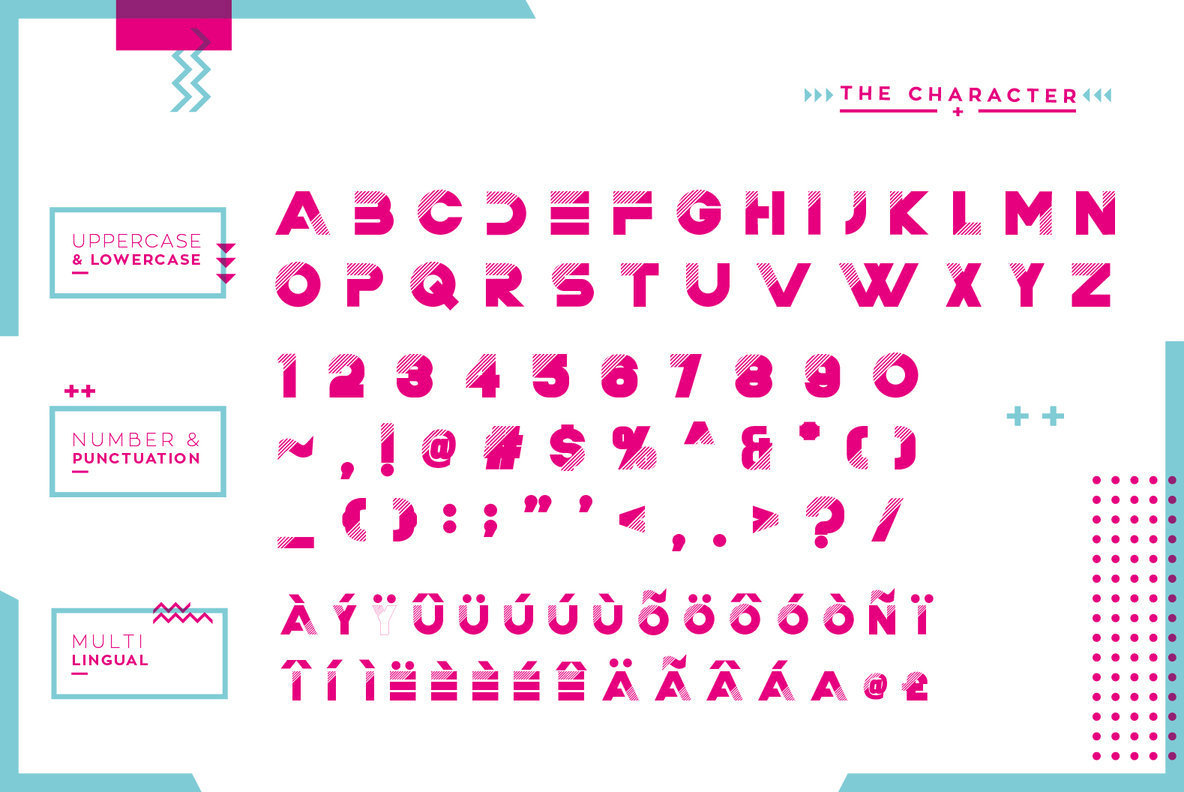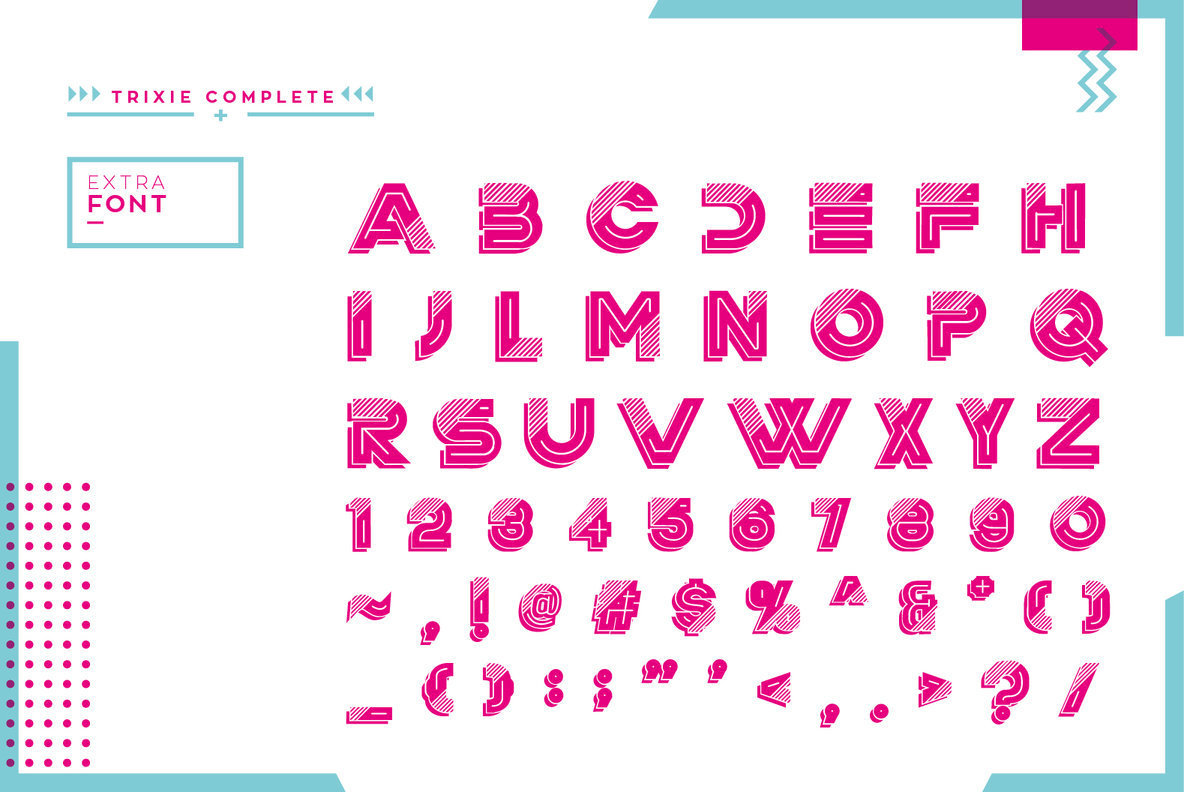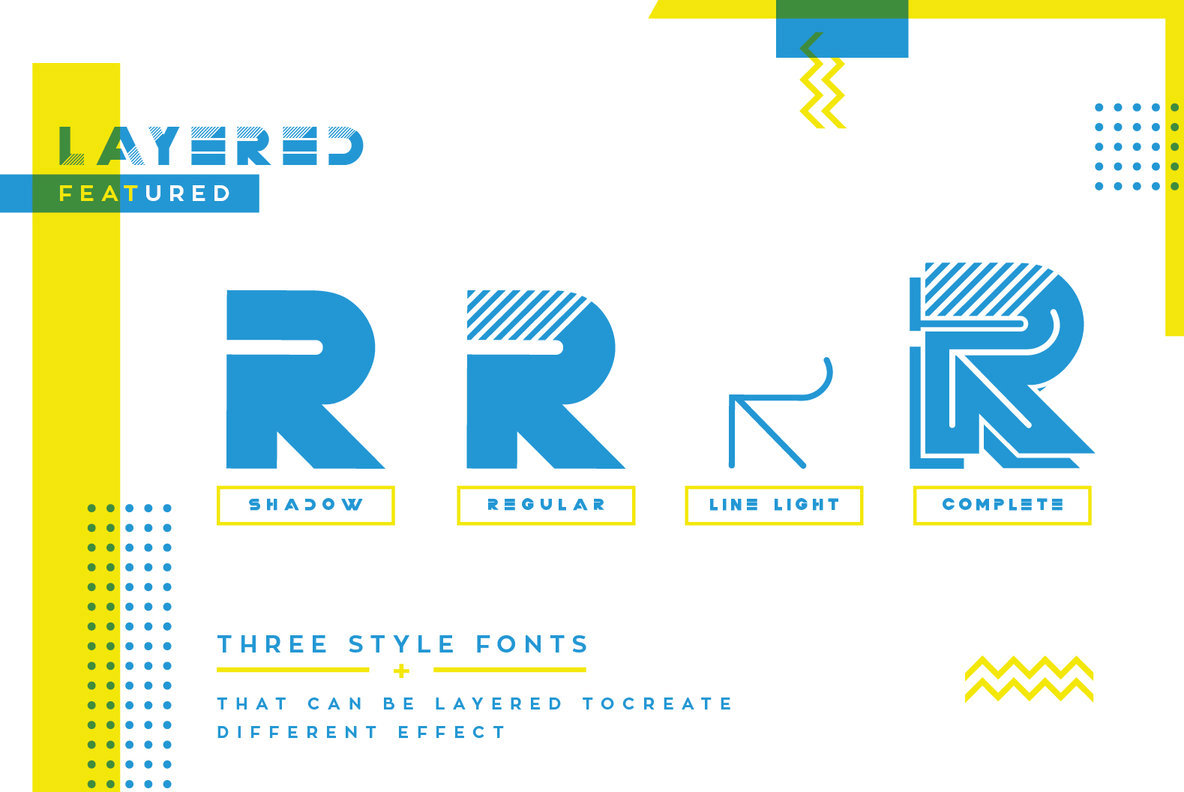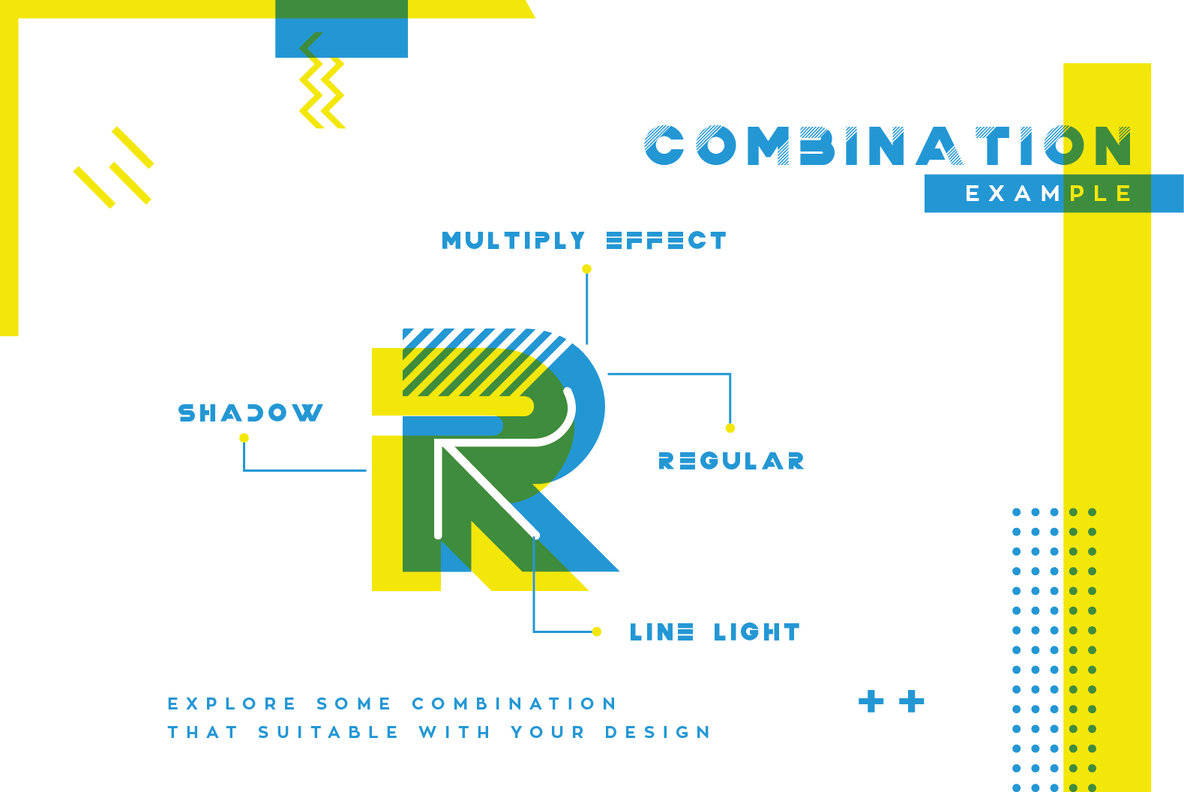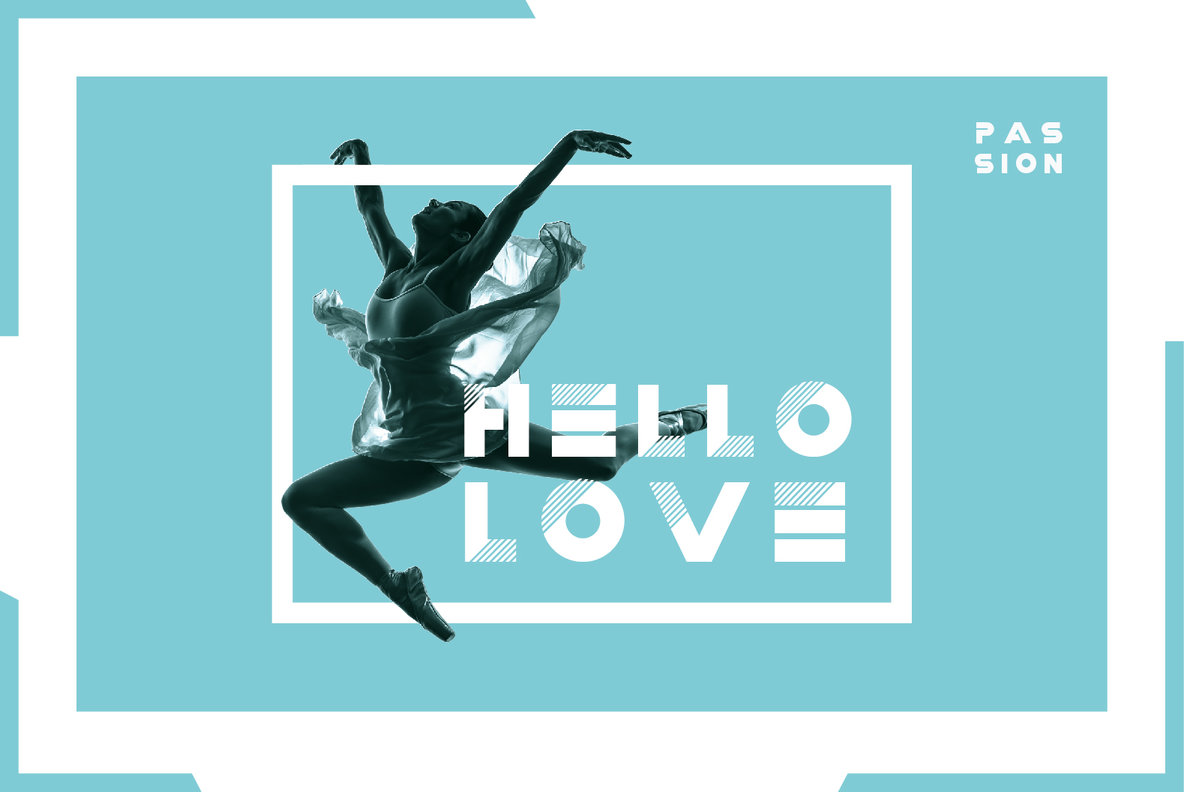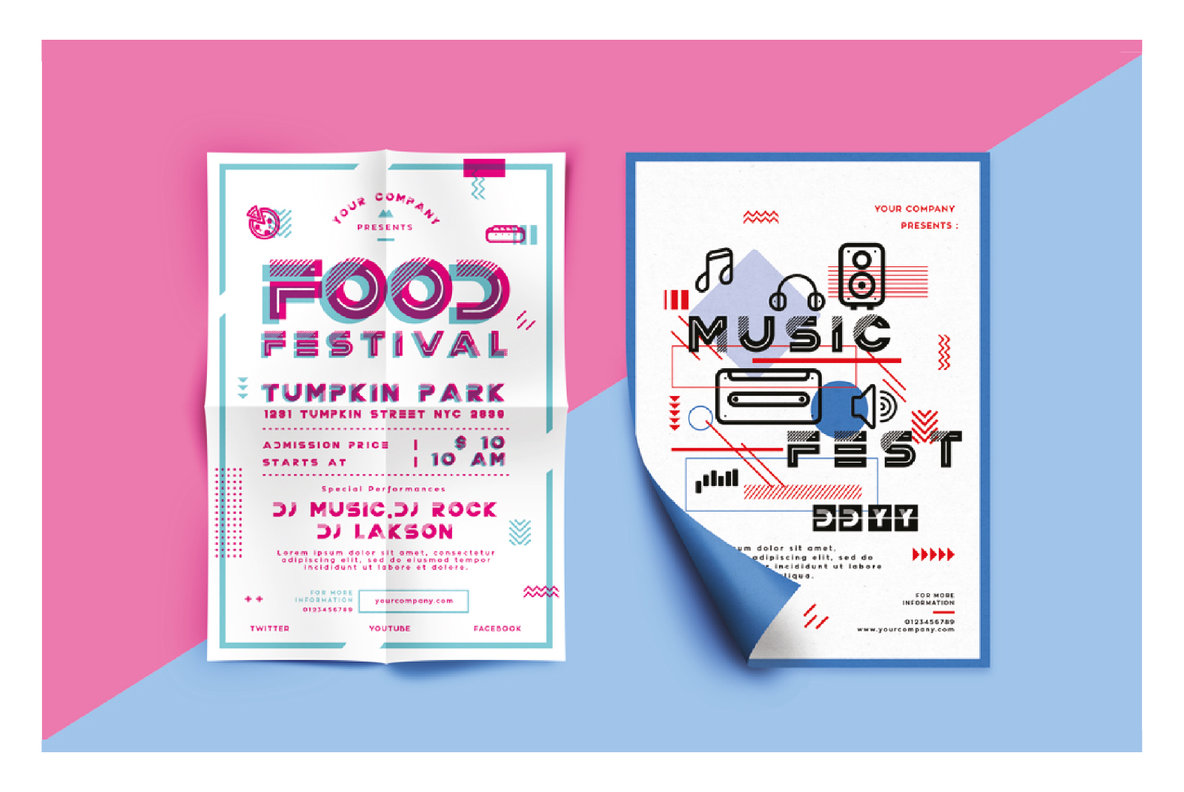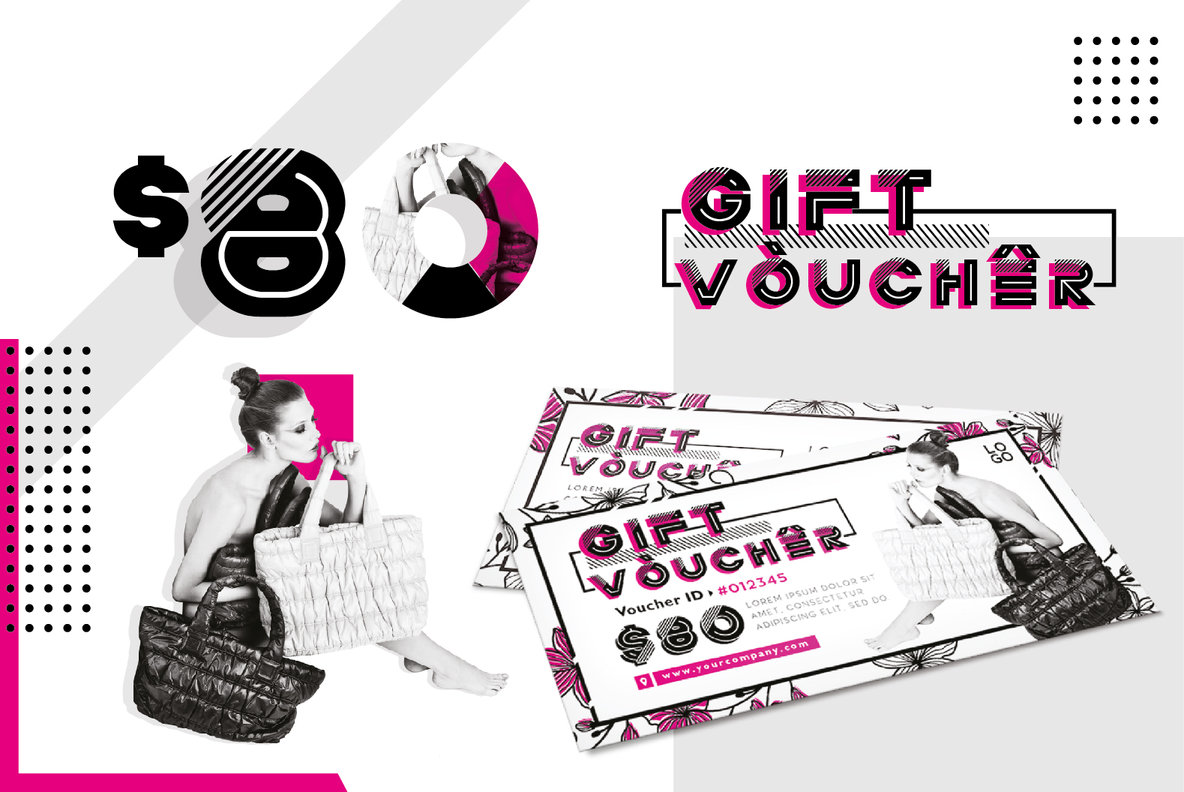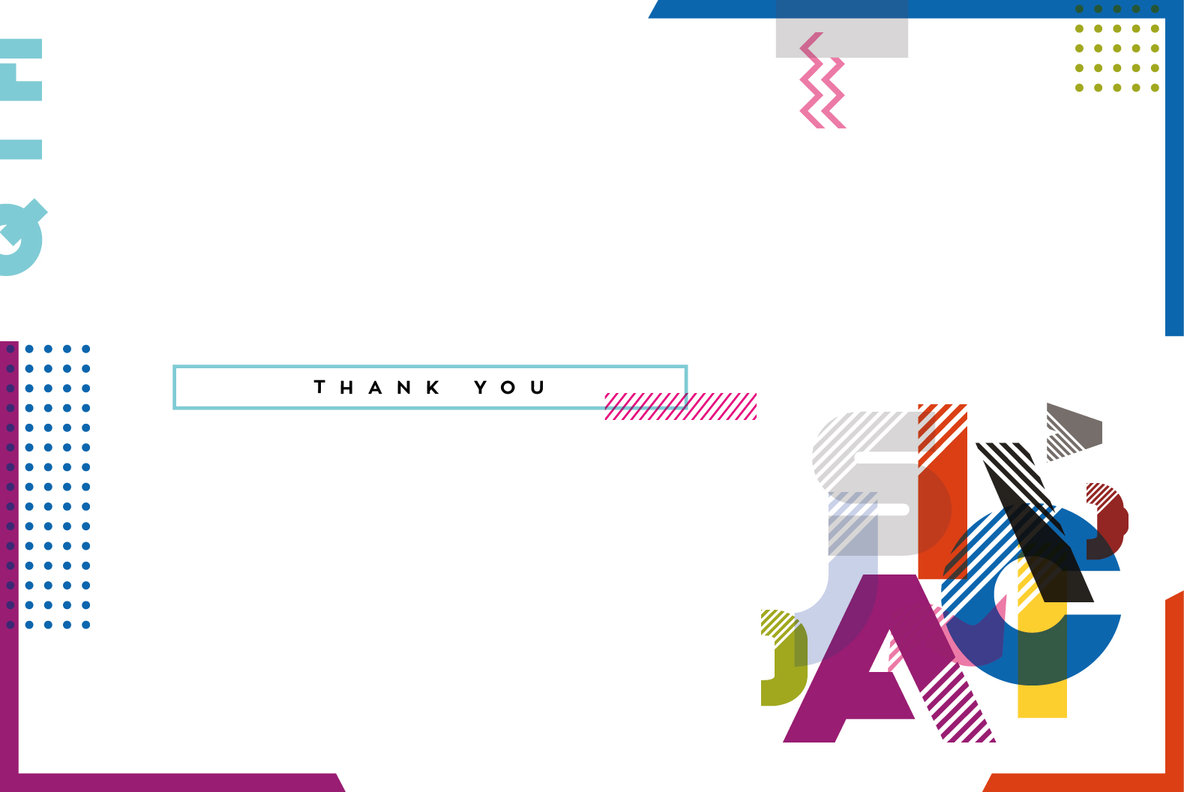
Trixie Font
Drawing inspiration from geometric forms and the intriguing multiply effect, Trixie is a modern typeface designed for designers with a futuristic vision. Its clean lines and minimalist design offer an excellent canvas for creative interpretations. The font includes upper and lowercase characters, multilingual support, numbers, and punctuation—ensuring it fits seamlessly into any design project. Trixie is ideal for those aiming to craft visually striking headlines and is adaptable across various design domains. This versatile typeface finds its place in web and print projects, motion graphics, and is perfect for wearable art, including t-shirts. Its application in logos, posters, branding, and packaging speaks to its adaptability and modern appeal.Trixie: A Geometric Typeface With Layered Effects